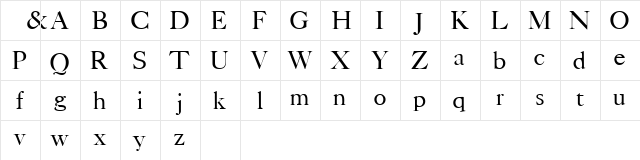
Patrician!" Regular
Design Context for Patrician!" Typeface
Patrician!" offers clean, dependable letterforms without strong stylistic allegiance, making it a practical choice for designers who need flexibility.